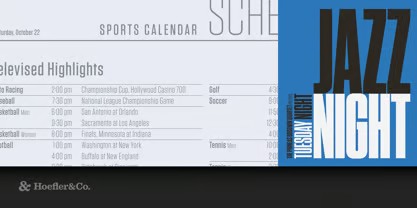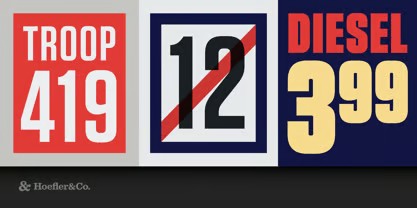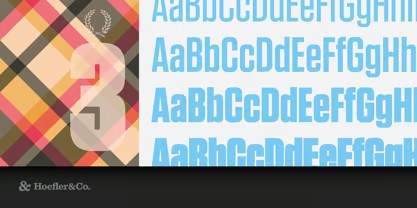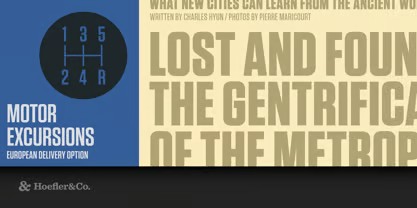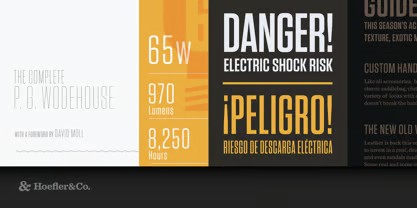
About Tungsten Font
I used Tungsten on posters, headlines, and logo marks. The way it handles space, the shape of each letter, the tension between curves and flats, it worked perfectly. So, I had to write this review. If you’re a designer, I want you to know what this font can really do.
About the Font Type and Designer
Tungsten Font is a sans serif that doesn’t play by the rules. It’s compact and strong, but never aggressive. Created by Hoefler & Frere-Jones, this typeface wasn’t designed just to look good, it was built to say something. Its tone is confident and stylish without being cold. You can spot its influence from the “Modern Gaspipe” look used in 20th-century signage and posters. It draws inspiration from a time when typography meant motion, energy, and impact.
Hoefler and Frere-Jones designed Tungsten to work hard in small spaces. They leaned into modular letterforms, clean, flat sides with tight spacing and minimal curves. It doesn’t rely on basic shapes like squares and circles. Instead, the team worked from real typographic relationships, how letters connect, balance, and stand together.
Features of Tungsten Free Font
Tungsten doesn’t shout, it speaks with power. The letters are tall and narrow, giving your layout a strong vertical push. It’s perfect when you need to make a statement without crowding the space. The flat edges give it a sleek, modern look, while the subtle curves and bold forms hold the reader’s attention.
This typeface shines in uppercase. Headlines pop. Posters demand to be read. The lowercase is just as sharp, designed with the same control and structure. Whether you’re working on web design or large-format print, the font adapts well. It’s available for both personal and commercial use, with install options for PC, Mac, iOS, and Android. That’s great support across platforms.
Tungsten has a sense of style that’s both retro and fresh. The visual weight is balanced. You’ll notice the influence of Constructivist design, bold, geometric, and focused. It looks great in branding, posters, and anything where typography is the main feature. Font appearance may differ slightly depending on selected letters, but that’s what gives it character. It’s consistent, sleek, and ready for creative use.
Where Can You Use Tungsten Font Family?
Tungsten Font works anywhere you need impact without noise. It’s perfect for posters, branding projects, packaging, and editorial spreads. I’ve used it in tech presentations, clothing labels, and signage. Each time, it looked strong and polished without overpowering the rest of the design.
Because it’s a sans serif, it pairs well with minimalist layouts. You can use it on websites, social graphics, or even T-shirt designs. It gives structure to brand identities. If your project needs a clean look with personality, this is a smart pick. Designers looking to elevate their visual work should try it.